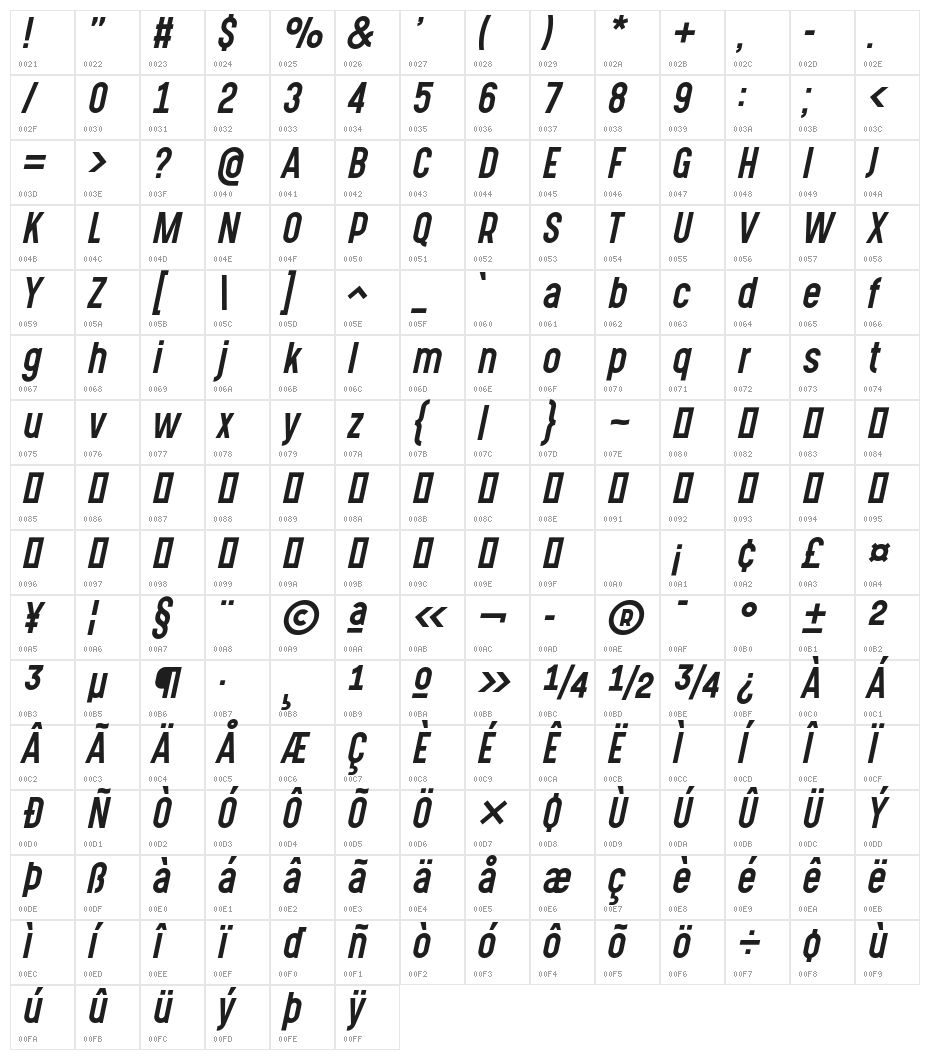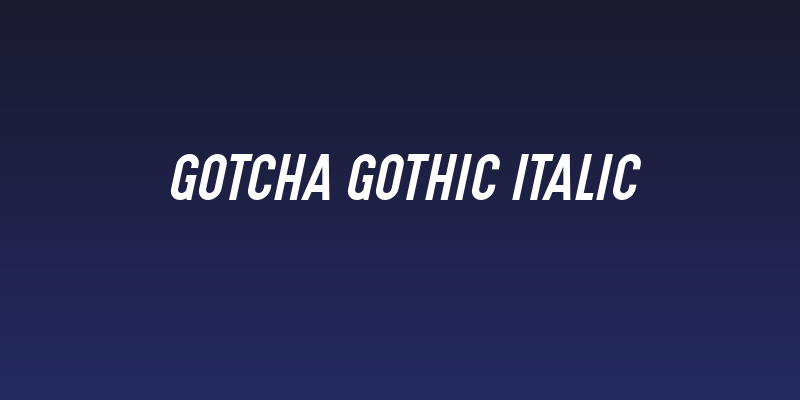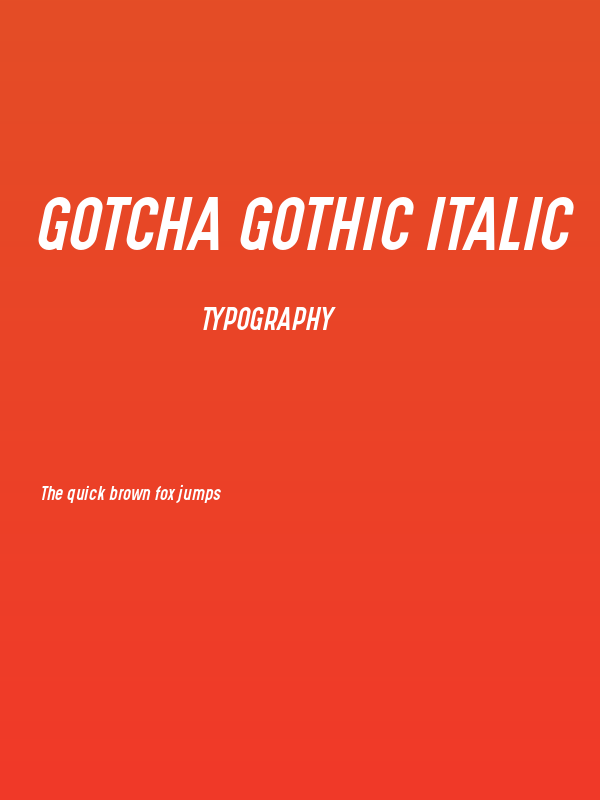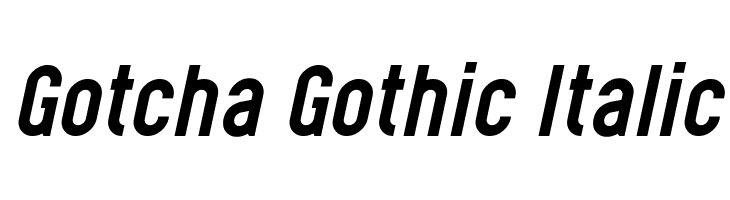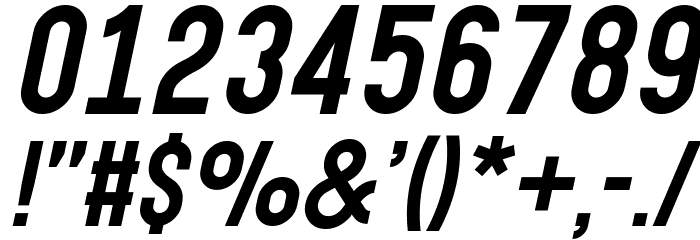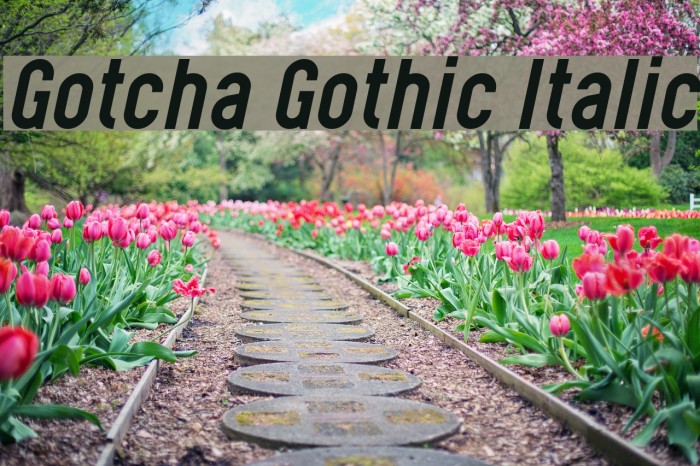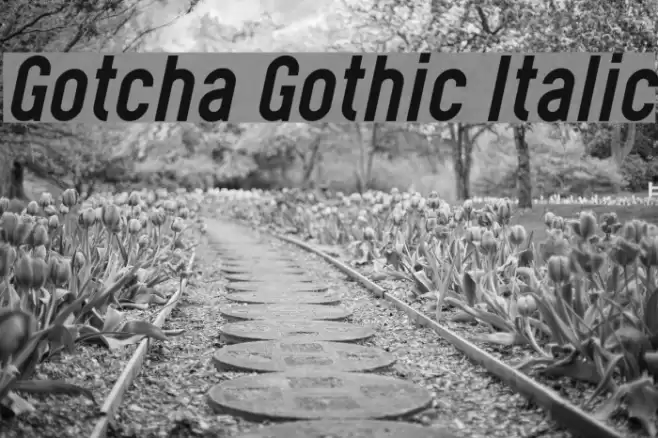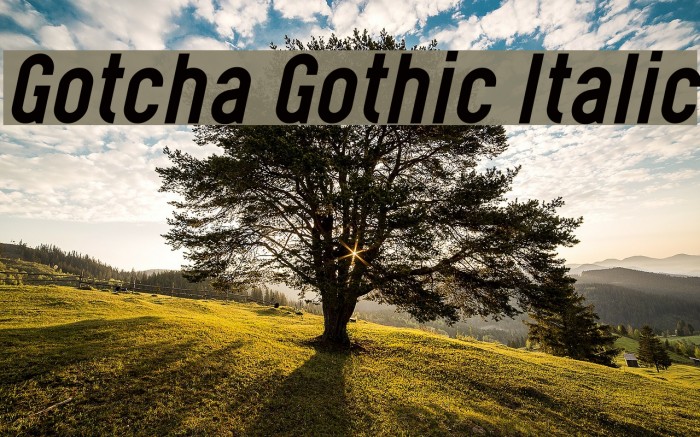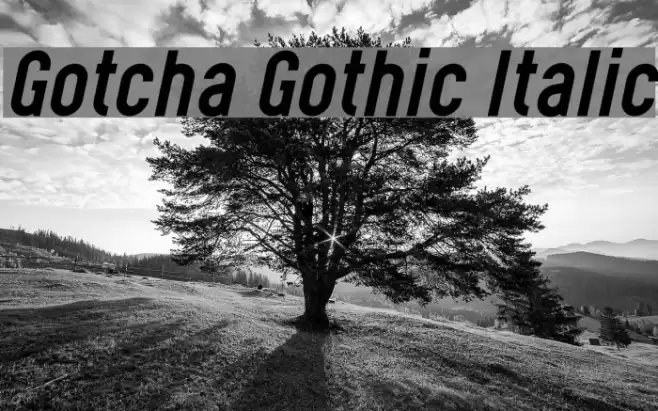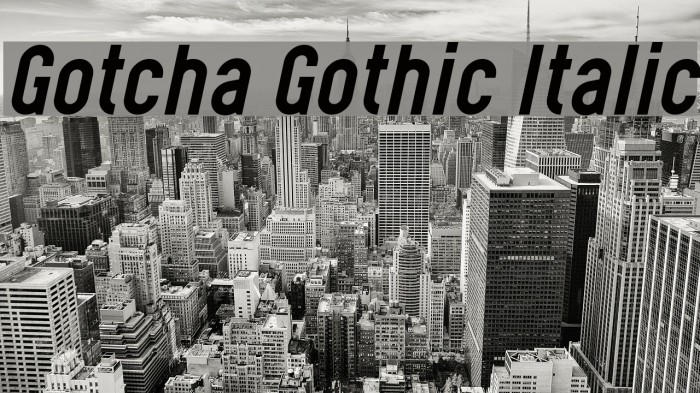
Gotcha Gothic Italic Font
Gotcha Gothic Italic Description
This font features a bold and dynamic style with a strong emphasis on angular lines and a slightly condensed form. The italic slant adds a sense of motion and urgency, making it ideal for attention-grabbing headlines. The uppercase letters are tall and commanding, while the lowercase letters maintain a consistent height, ensuring readability. The numerals are clear and distinct, matching the overall boldness of the font. Special characters are well-defined, providing versatility for various design needs. The overall aesthetic is modern and assertive, suitable for projects that require a strong visual impact.
| Proposed Projects | Ideal for branding, advertising, posters, and editorial design where a strong, impactful presence is needed. |